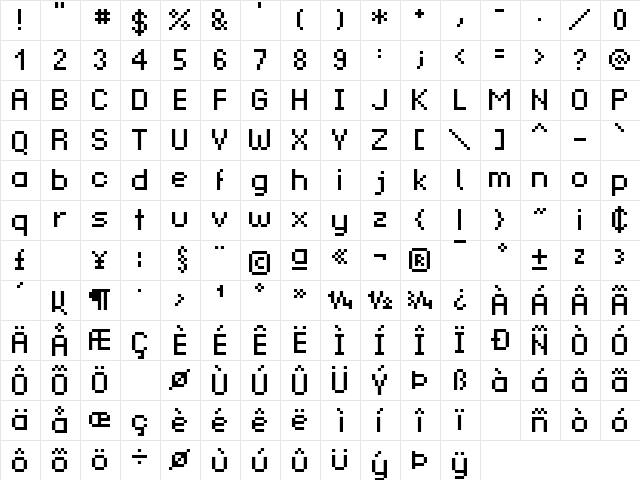
Bavaria Regular Regular
Design Context for Bavaria Regular Typeface
Bavaria Regular is a composed and adaptable typeface that performs quietly and consistently across a wide range of design contexts.
Pro Tip: Use Bavaria Regular in both headline and body roles to test its range before committing to a single application.